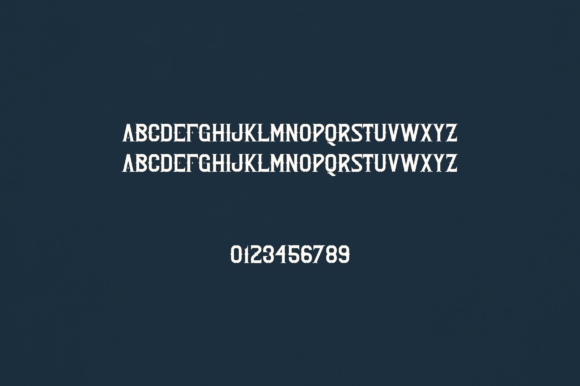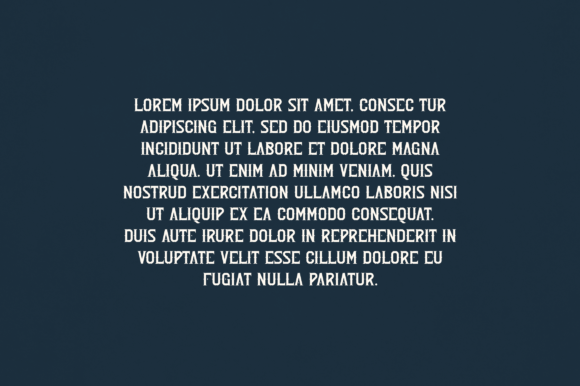
Alden Font: Elevate Your Typography with Elegance and Versatility
In the world of typography, a font can make or break a design. If you’re a designer, craftsperson, or simply someone who appreciates beautiful text, you’re likely always on the lookout for the perfect font to elevate your project. That’s where Alden Font comes in – an elegant and versatile display font that’s sure to make your typography truly unique.
What is Alden Font?
Alden Font is a stunning display font designed to add a touch of sophistication and style to any project. Its elegant lines and versatile design make it perfect for a wide range of applications, from logos and branding to headlines, packaging, and more. Whether you’re working on a professional project or simply want to add a stylish text overlay to a background image, Alden Font is the perfect choice.
Key Features of Alden Font
- Elegant and Versatile: Alden Font boasts an elegant design that’s both sophisticated and versatile. Its unique lines and curves make it perfect for a wide range of projects.
- Perfect for Branding: With its stylish and professional design, Alden Font is ideal for branding projects, including logos, business cards, and letterheads.
- Magazine-Quality Headers: Add a touch of elegance to your magazine headers, article titles, and section headings with Alden Font.
- Packaging and Product Design: Use Alden Font to add a stylish touch to your product packaging, labels, and marketing materials.
- Home-Ware and Crafting: Alden Font is also perfect for crafters and DIY enthusiasts looking to add a personal touch to their home-ware designs, such as personalized signs, wall art, and more.
Why Choose Alden Font?
With so many fonts available, why choose Alden Font? Here are just a few reasons:
- Unique and Eye-Catching: Alden Font is designed to stand out from the crowd. Its elegant lines and curves make it a unique and eye-catching addition to any project.
- Highly Versatile: Whether you’re working on a professional project or a personal craft, Alden Font is highly versatile and can be used in a wide range of applications.
- Easy to Read: Despite its elegant design, Alden Font is highly legible, making it perfect for use in body text, headlines, and more.
Tips for Using Alden Font
To get the most out of Alden Font, here are a few tips:
- Experiment with Sizes: Alden Font looks great in a variety of sizes, from large display headings to smaller body text.
- Play with Colors: Try pairing Alden Font with different colors and backgrounds to create a unique and eye-catching effect.
- Mix and Match: Don’t be afraid to mix and match Alden Font with other fonts to create a unique and visually appealing typography.
In conclusion, Alden Font is a stunning display font that’s perfect for designers, crafters, and anyone looking to elevate their typography. Its elegant lines, versatile design, and highly legible text make it a must-have for any project. Whether you’re working on a professional branding project or simply want to add a stylish touch to your home-ware designs, Alden Font is the perfect choice.